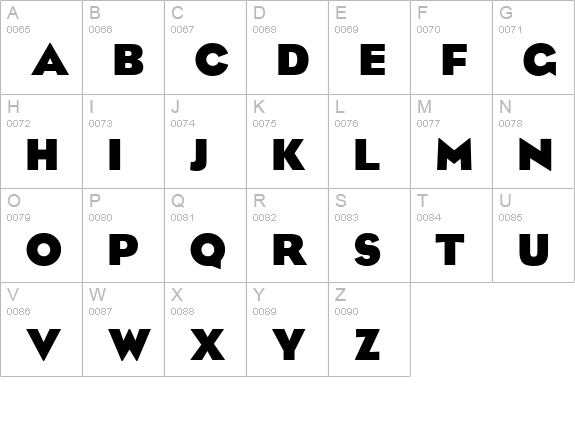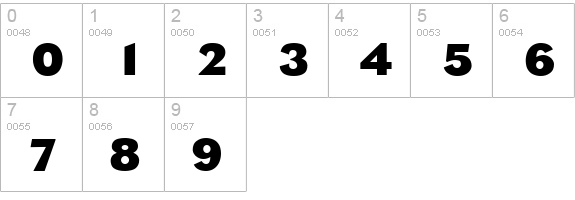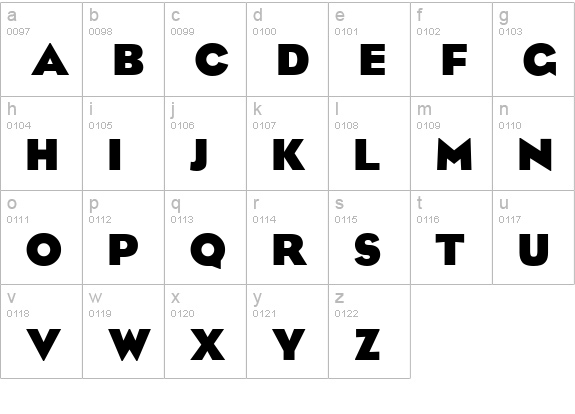
MilanBold Font Details
MilanBold is a stunning and versatile font that exudes elegance and sophistication. Its bold and modern design makes it perfect for a wide range of design projects, from branding to editorial design. The clean lines and sharp edges of MilanBold give it a contemporary and stylish look that will make your designs stand out. The best part about MilanBold is that it is completely free to download at FontsMarket.com. This means you can access this high-quality font without any cost, making it a valuable addition to your font collection. Whether you're working on a professional project or a personal creative endeavor, MilanBold is sure to elevate your designs and leave a lasting impression. Download MilanBold today and unleash your creativity with this fantastic font.